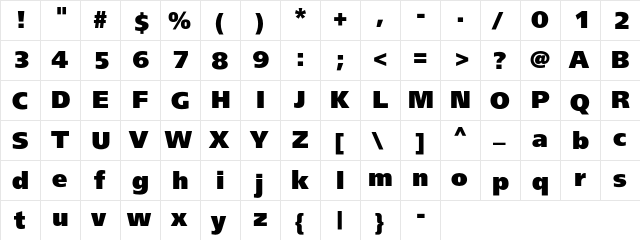
NoahBlack Regular
Design Context for NoahBlack Typeface
NoahBlack takes a measured approach to typography — its balanced proportions and neutral character make it a reliable workhorse for both digital and print work.
Pro Tip: Use NoahBlack in both headline and body roles to test its range before committing to a single application.